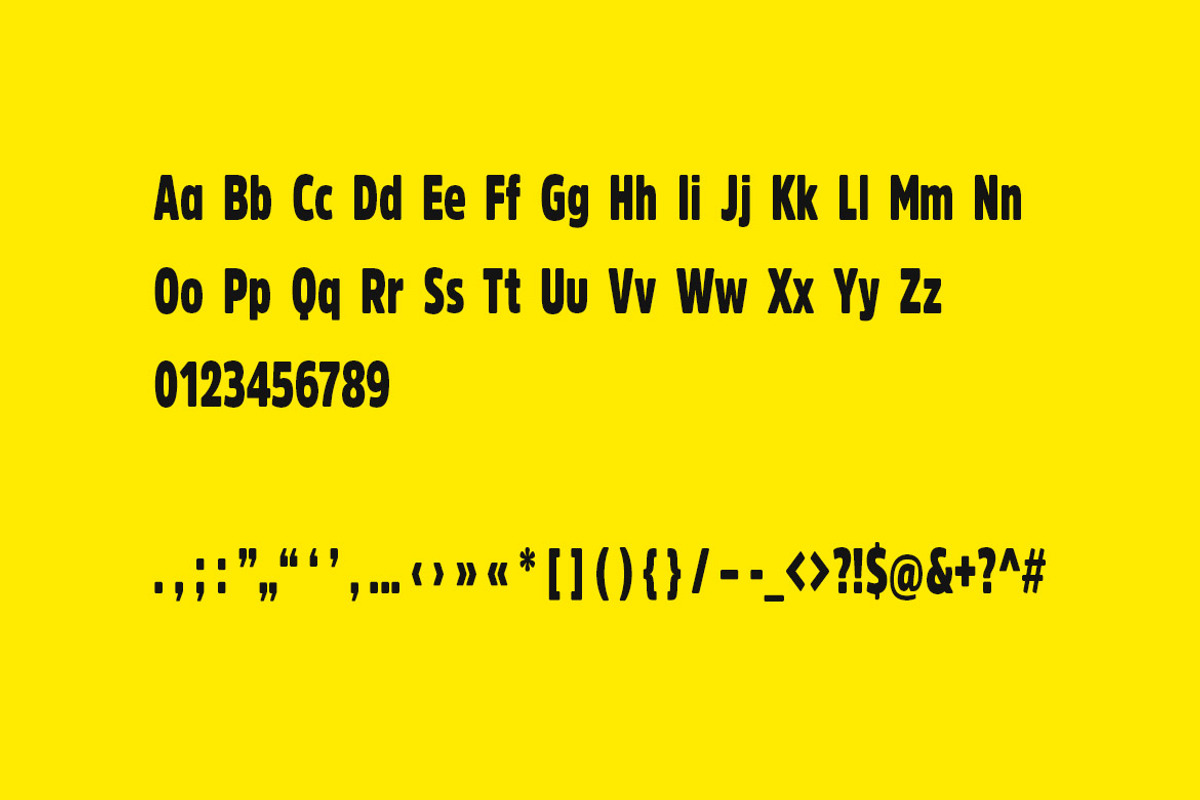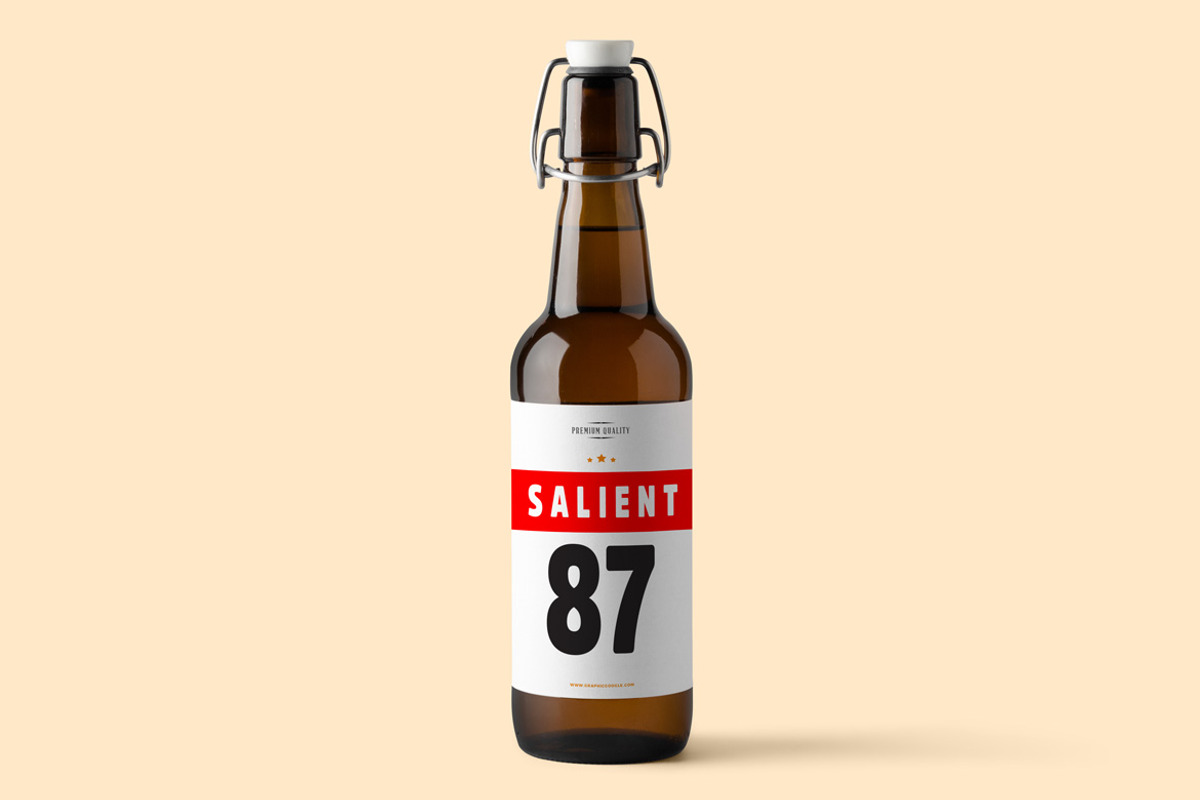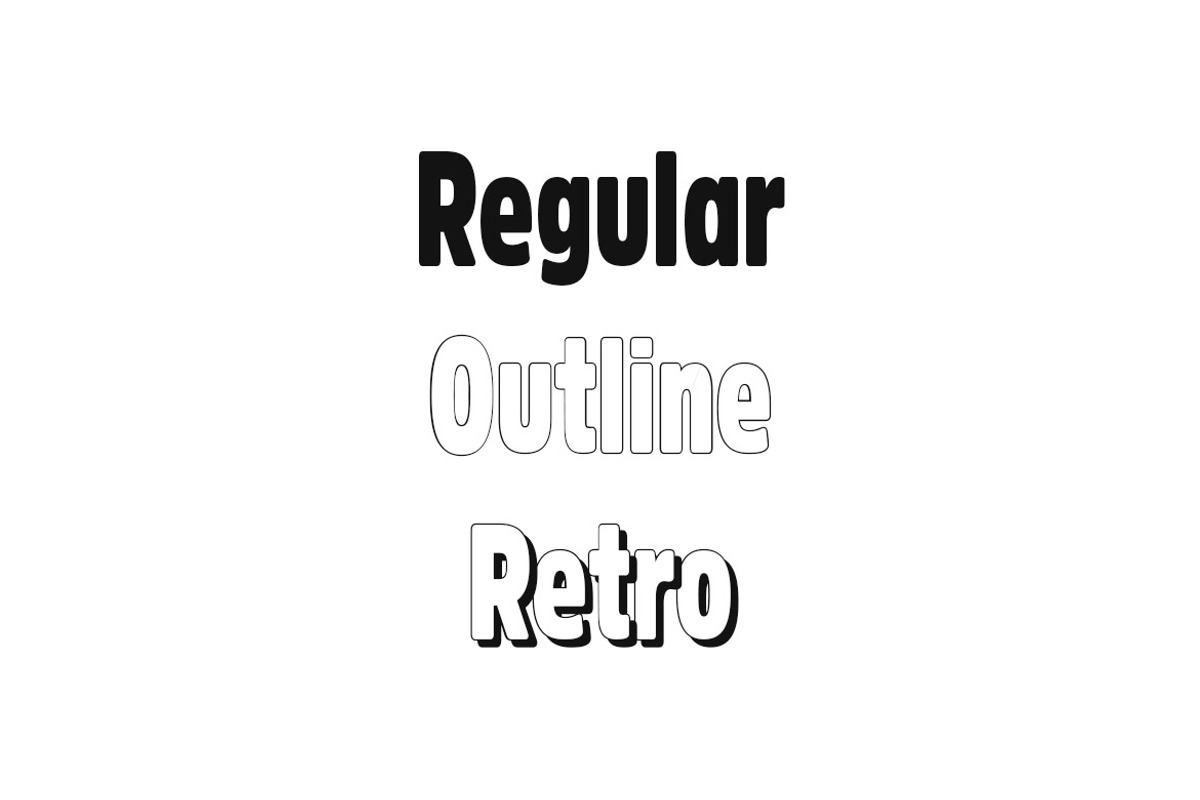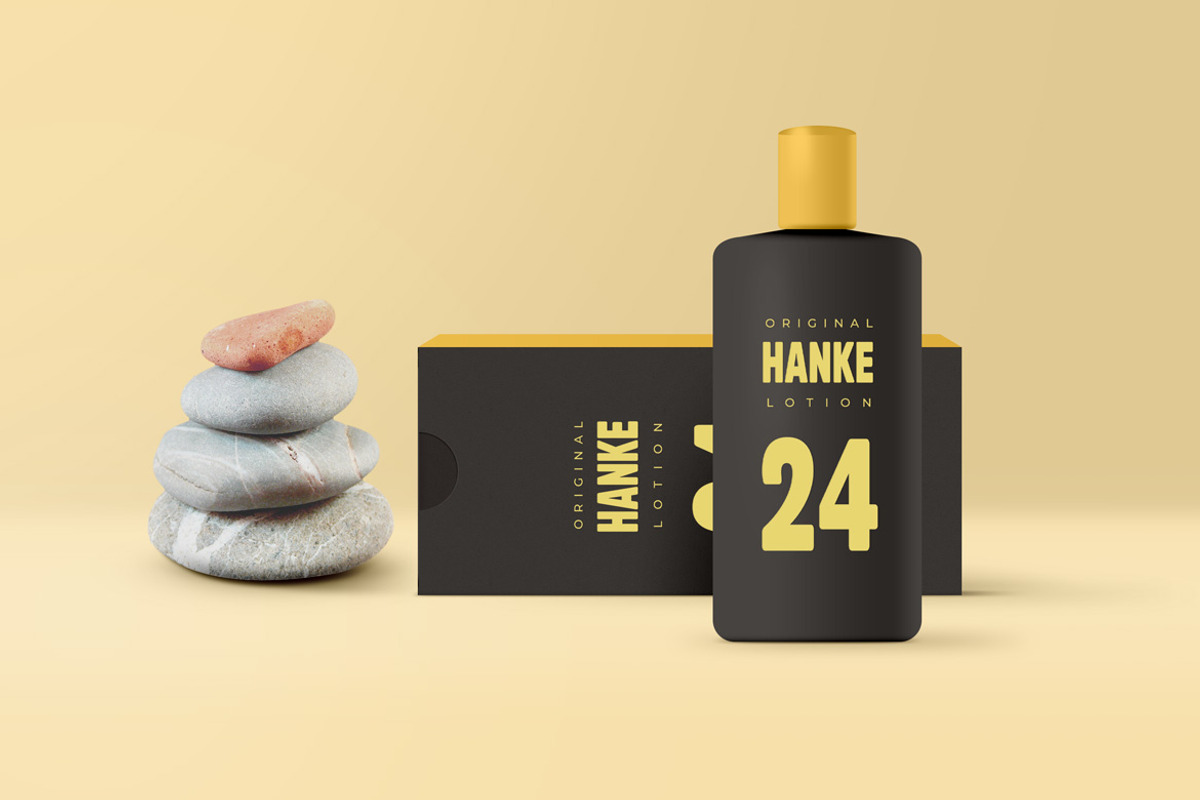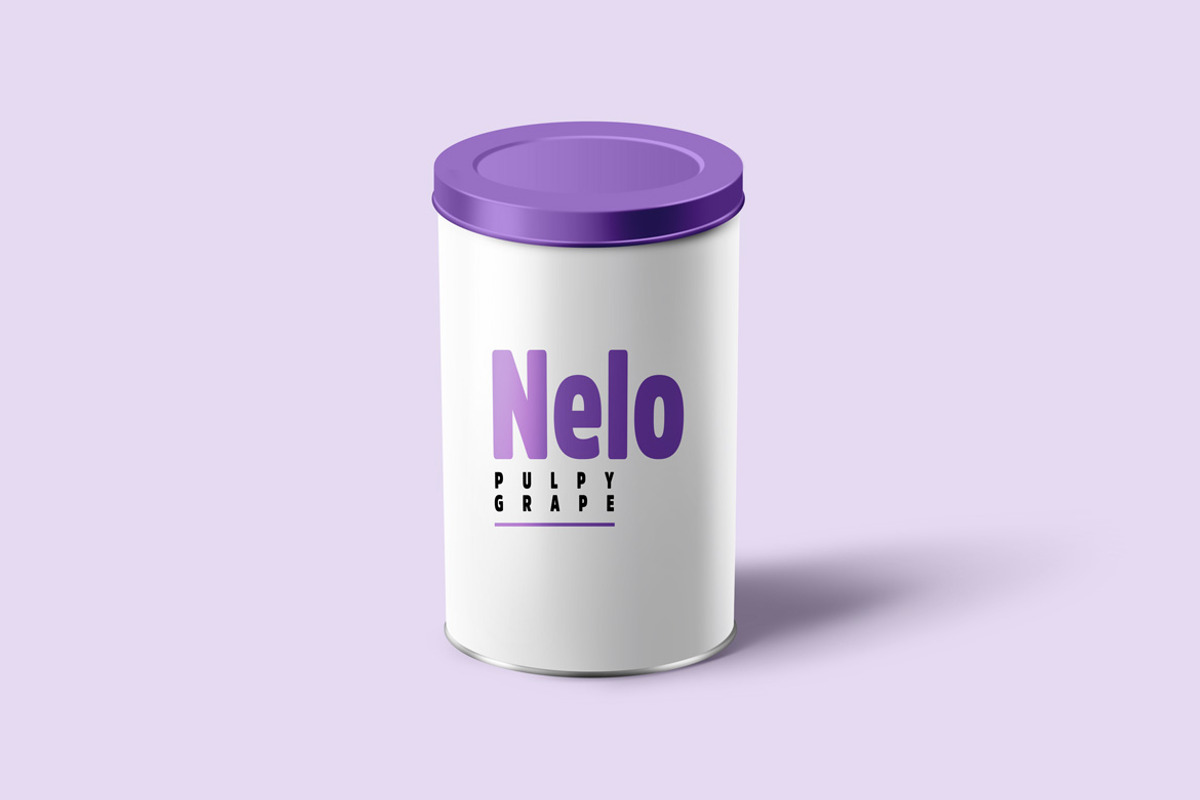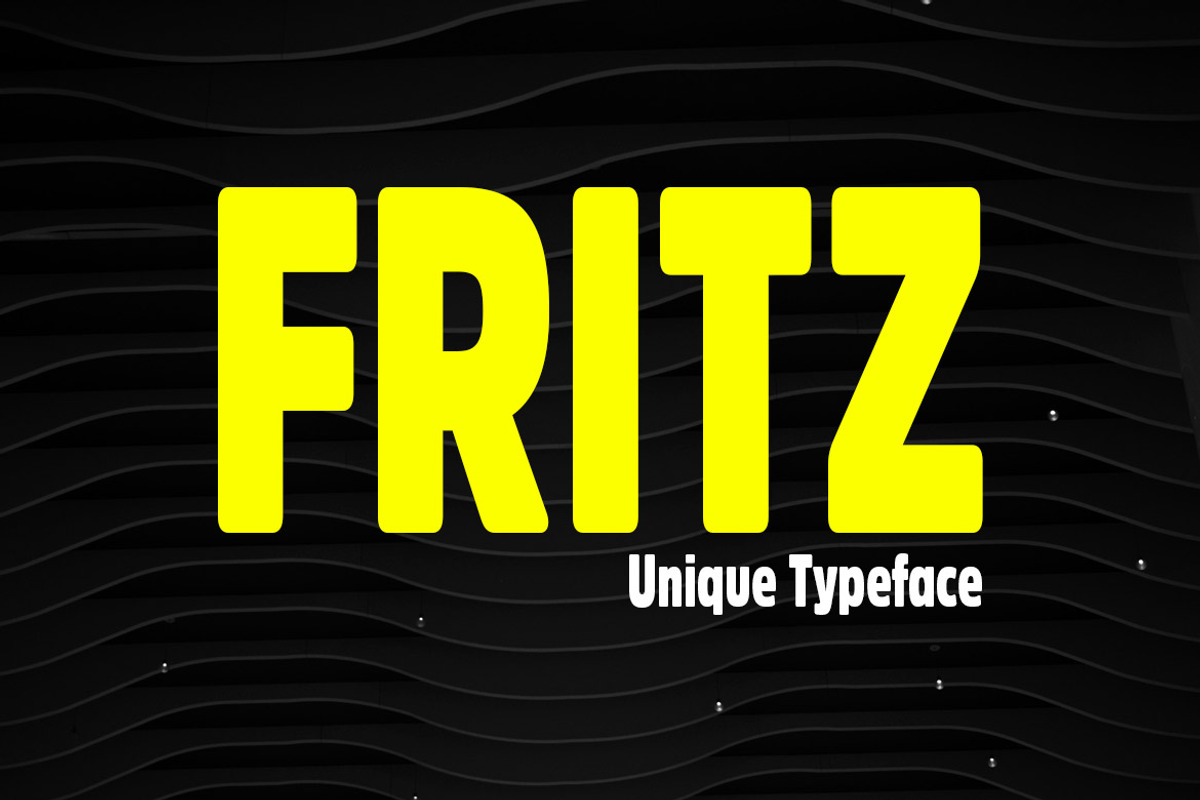
Fritz - Unique Display Typeface
Fritz is a unique typeface for logo, branding, headlines, big text & display usage. This sweet rounded typeface is inspired from famous restaurant brands. The typeface is best suited for creating outstanding logos, promotional content and marketing graphics that can really grab attention from your visitors. Please see the examples shown above to get an idea about the capability of this typeface.
Fritz comes as a single weight + 3 styles of typeface having Regular, Outline and Retro / Shadow versions. The pack contains OTF, TTF and Web Fonts (all EOT, SVG, TTF, WOFF, WOFF2 everything is included).
- Fritz Regular
- Fritz Outline
- Fritz Retro